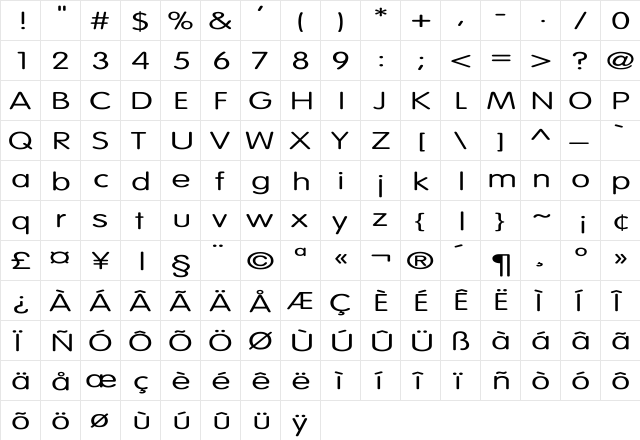
Vogue-Normal Ex Regular
Design Context for Vogue-Normal Ex Typeface
Vogue-Normal Ex is a composed and adaptable typeface that performs quietly and consistently across a wide range of design contexts.